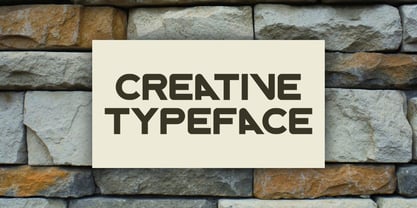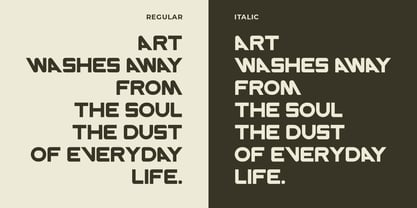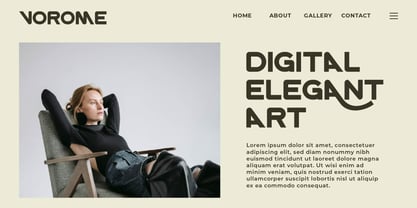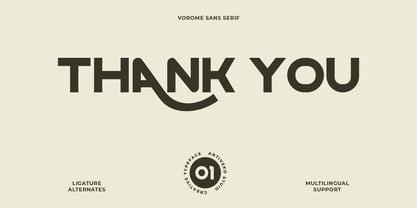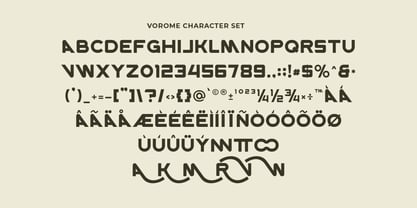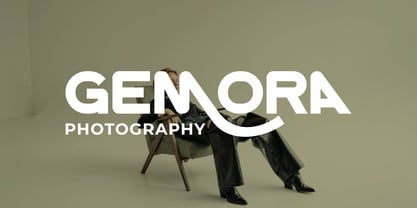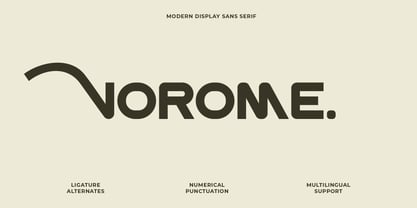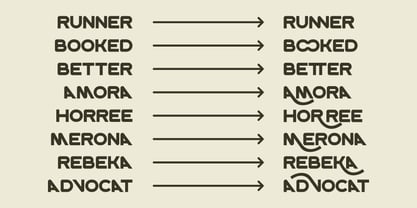
Vorome
by Artiveko
Vorome is a strong and unique sans serif font with bold character and striking forms. Built for impactful branding, posters, headlines, and logos, it stands out with sharp angles and confident geometry. Complete with multilingual support, ligatures, and alternates, Vorome delivers a fearless presence in any modern design.